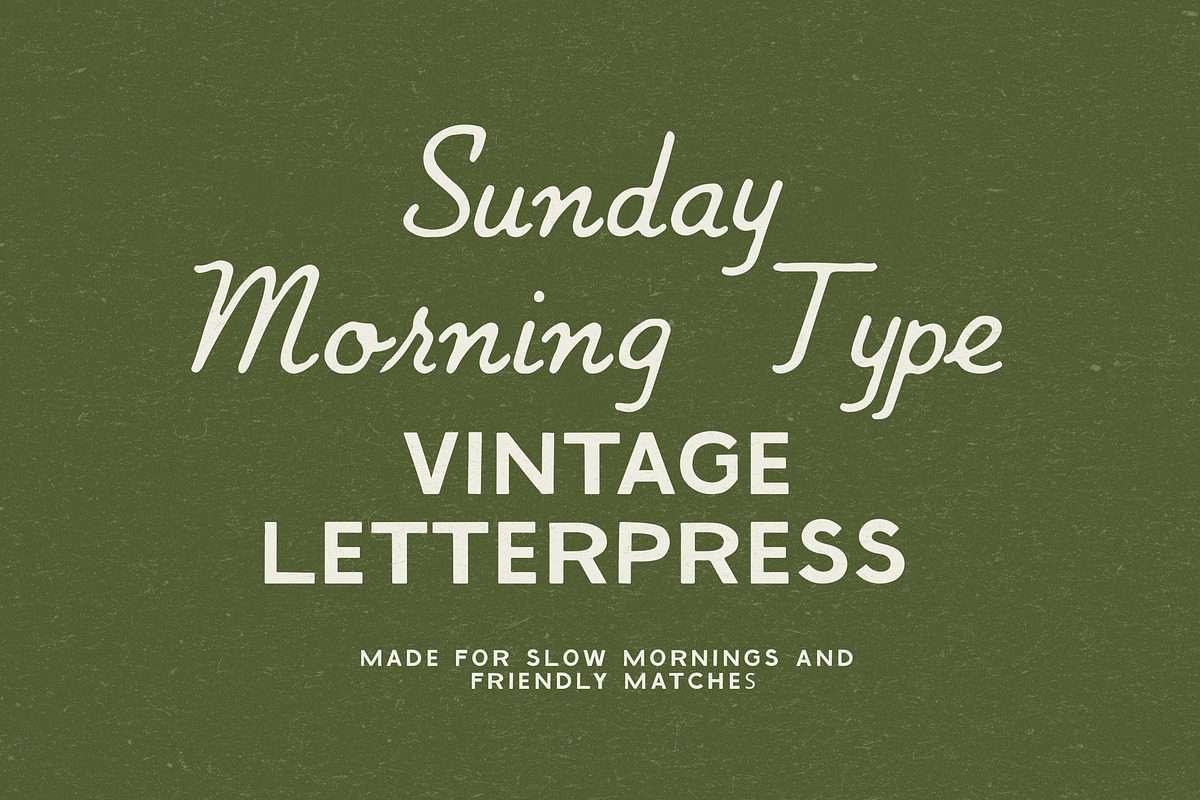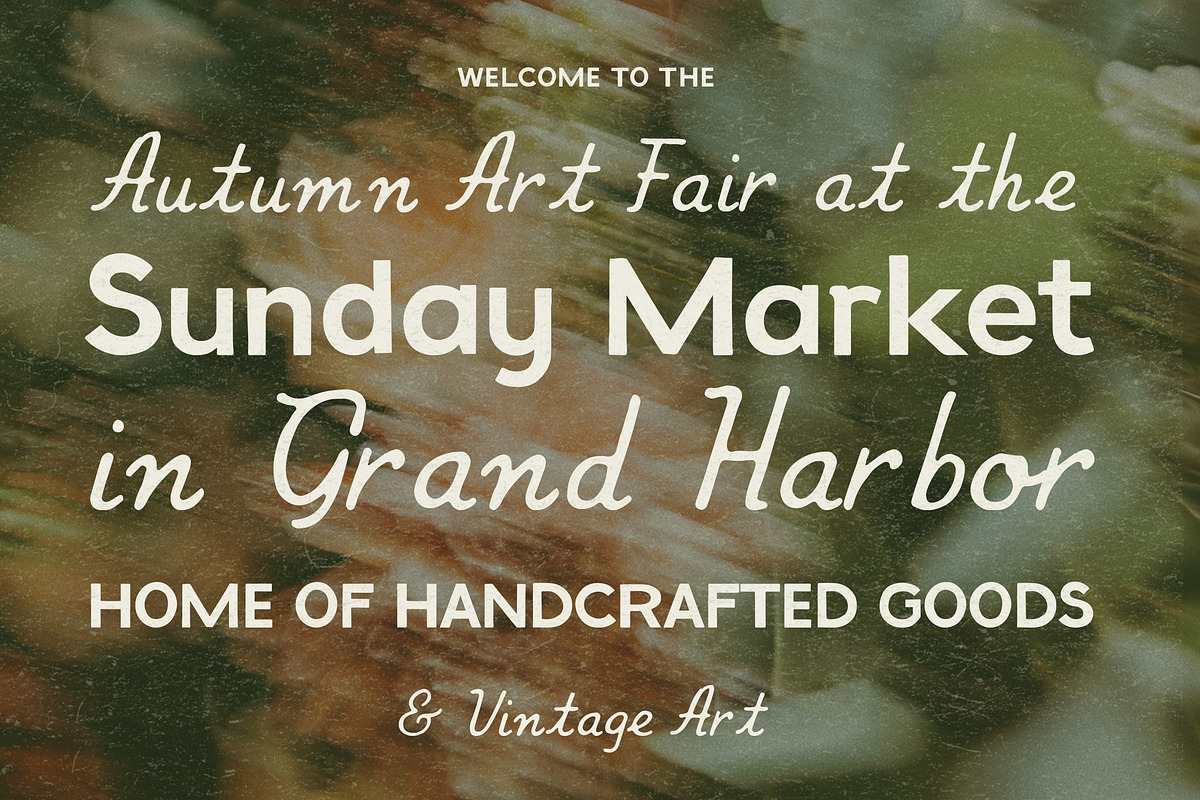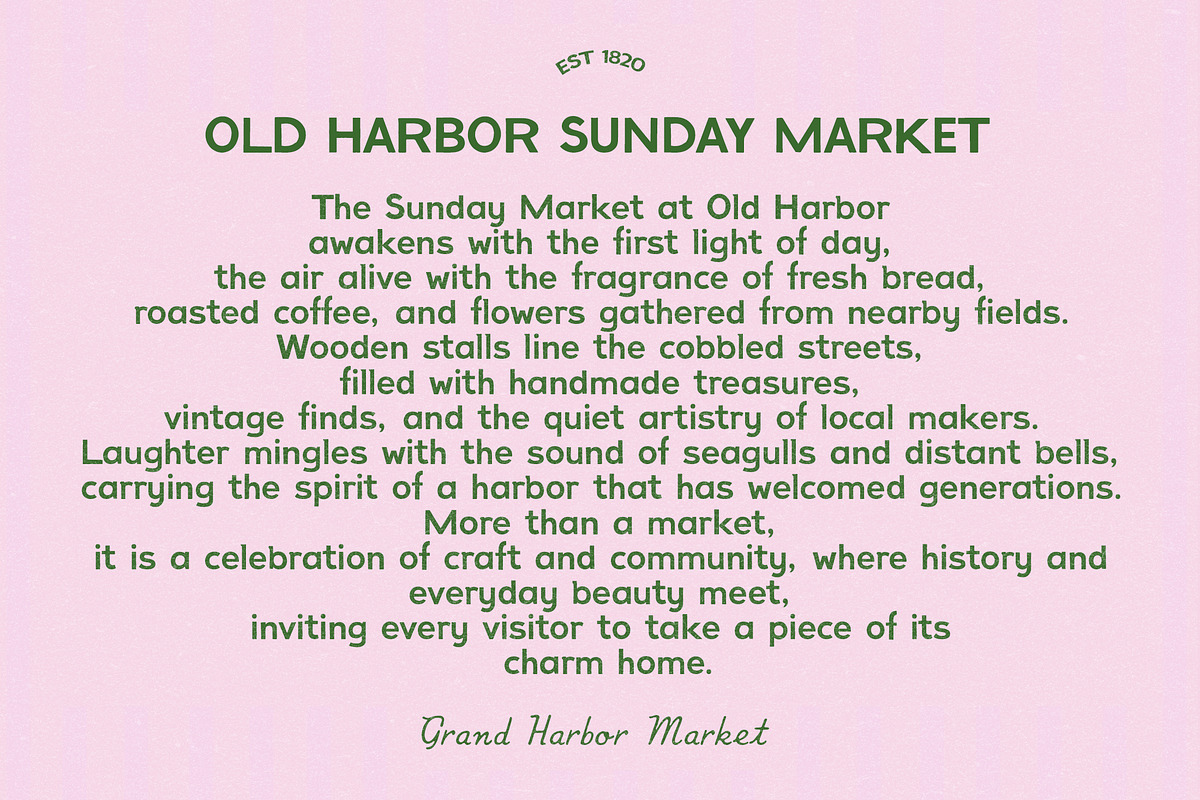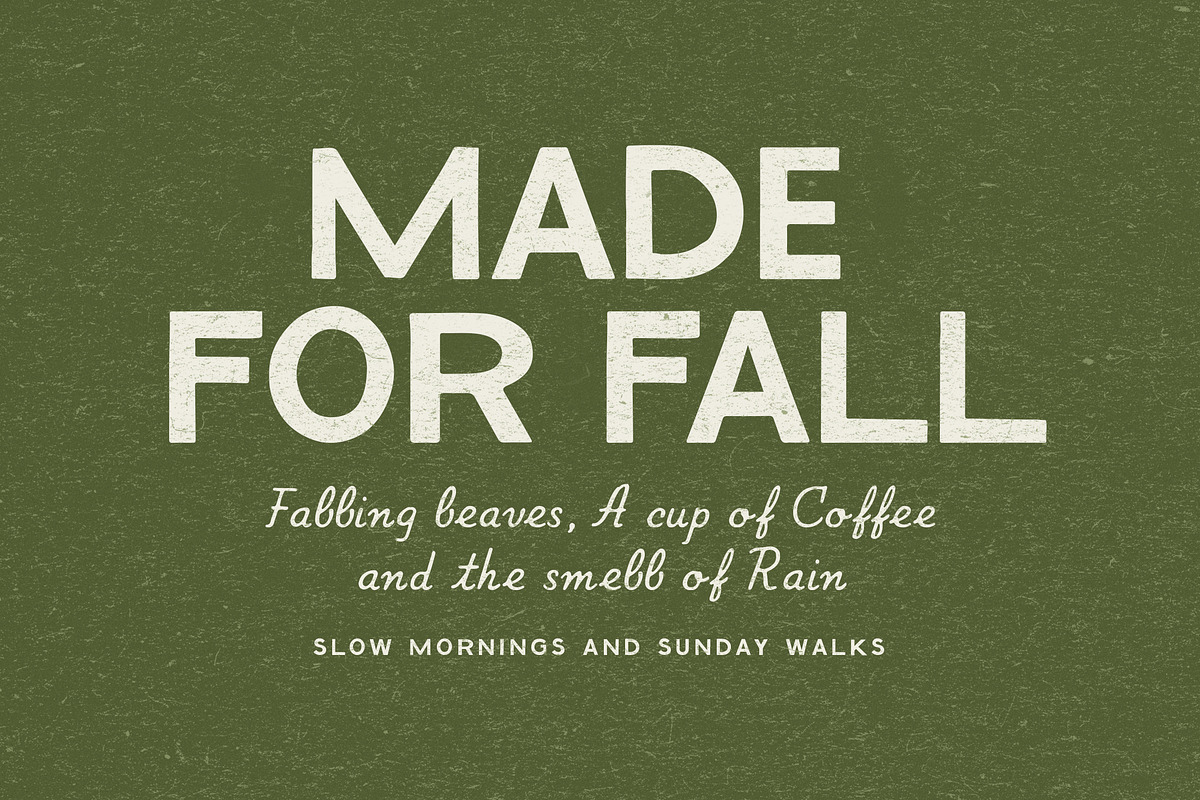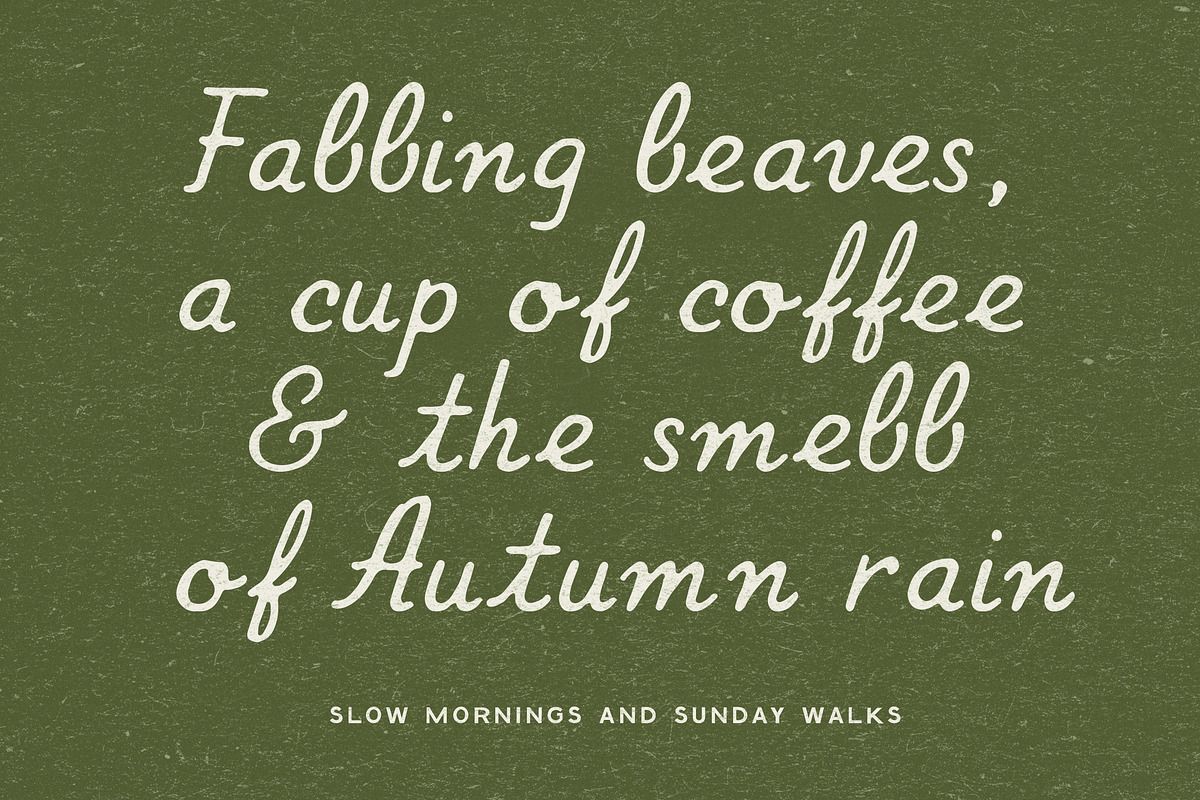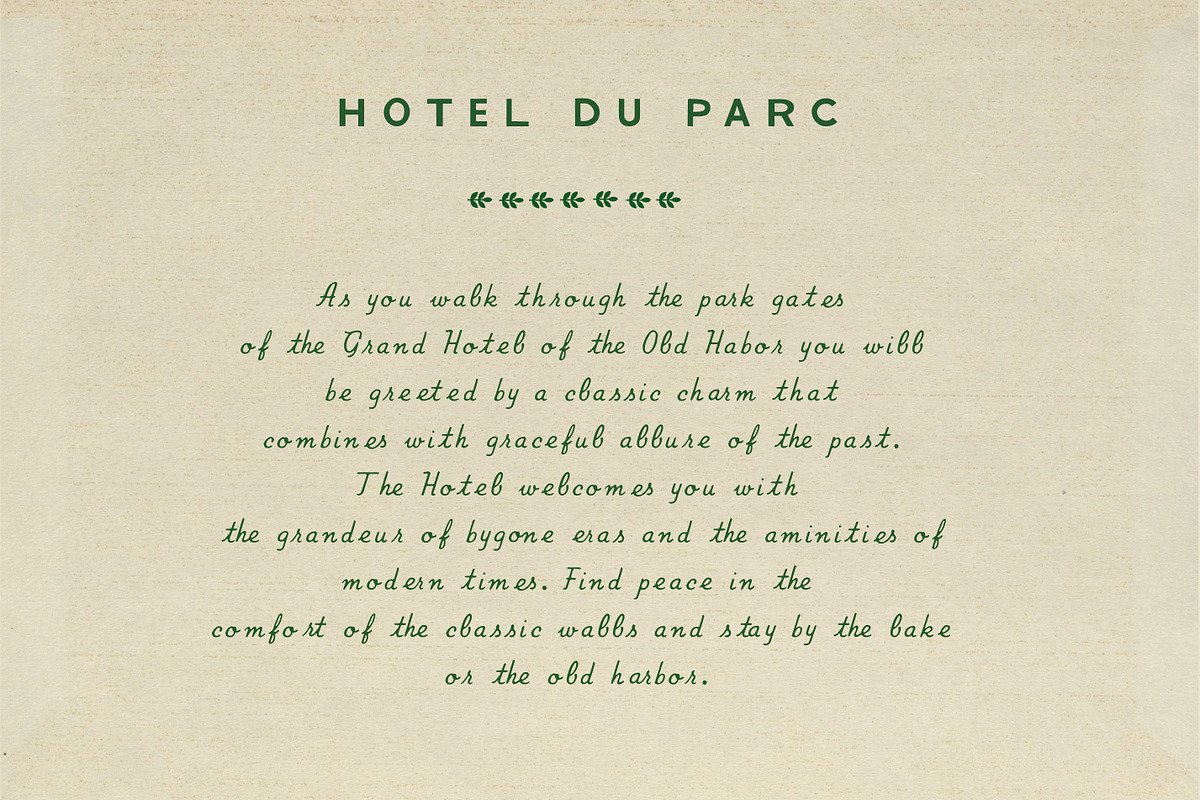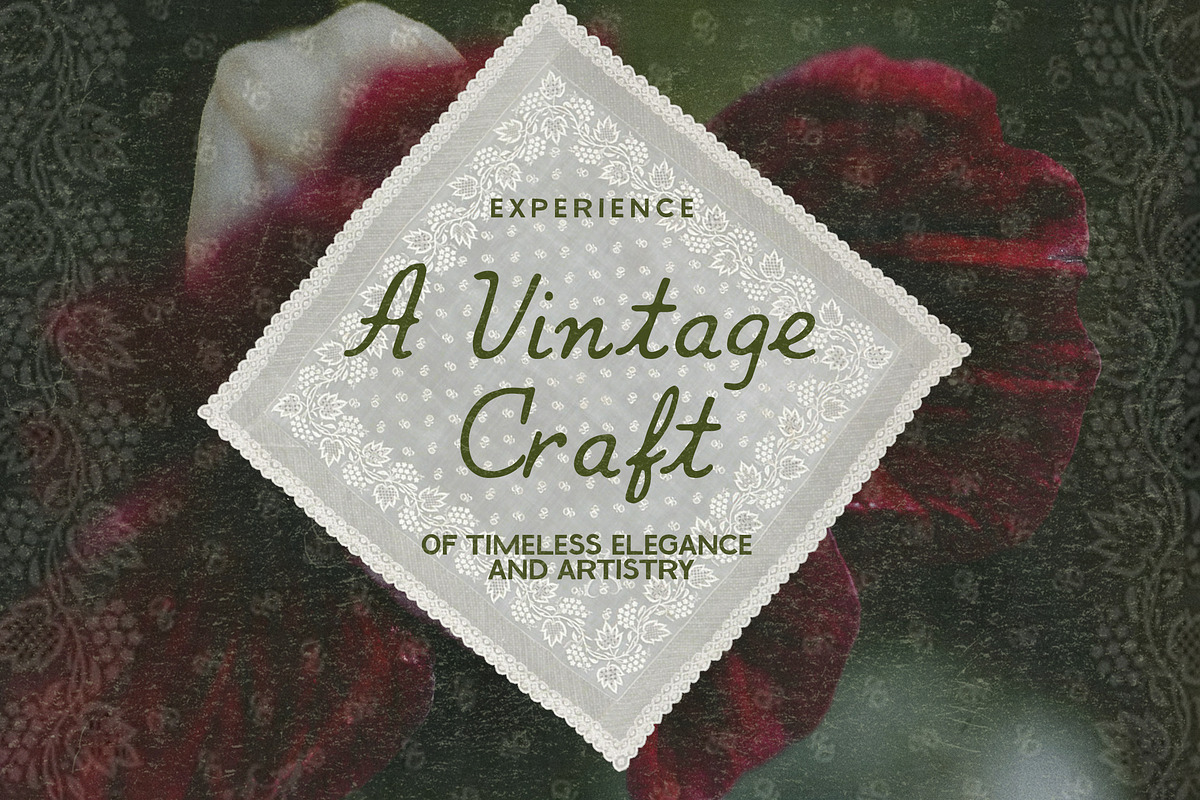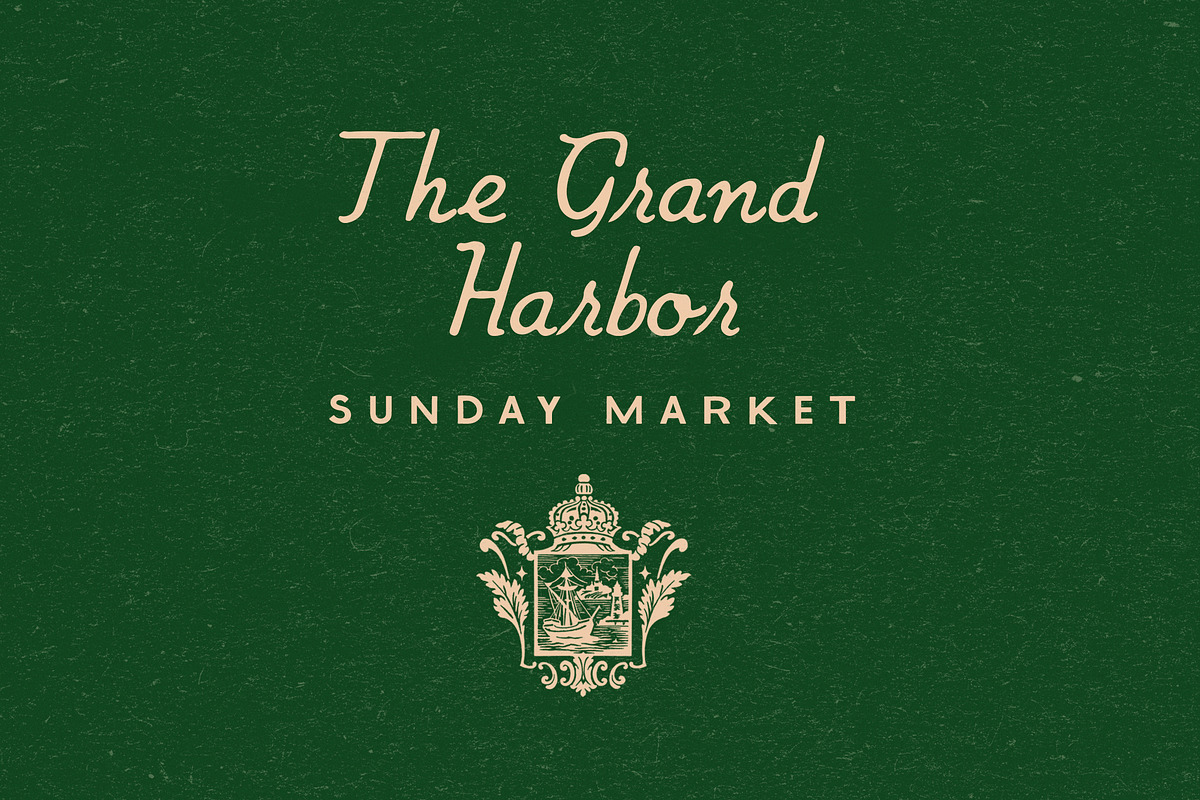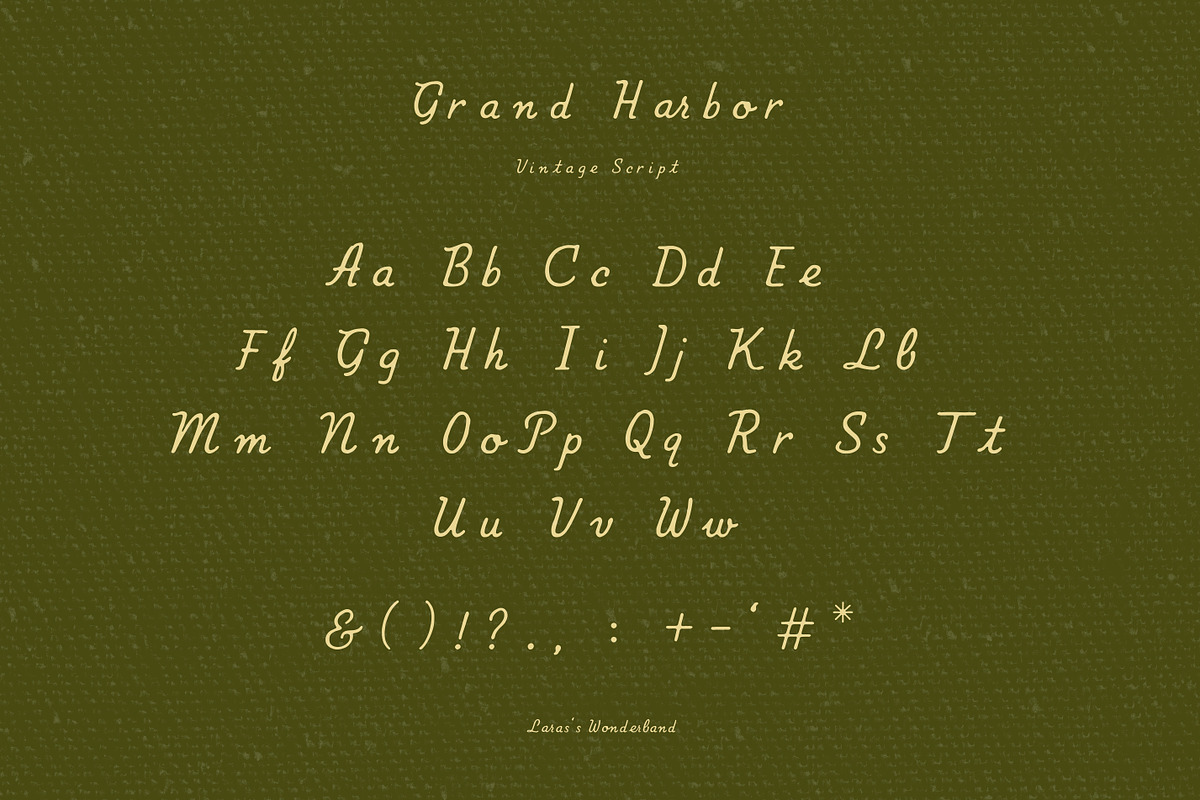
Vintage Handmade Script and Sans Duo
Welcome the elegance of bygone eras and lovingly handcrafted letters with a handwritten vintage font duo that comes with a vintage allure and handmade charm.
Bring character and elegance to your designs with this handcrafted font duo. The set combines a refined sans serif with subtle handmade edges and natural imperfections with a flowing vintage script full of charm and personality. Together they create the perfect balance of structure and warmth giving your projects a touch of old-world luxury with a modern twist.
Add vintage charm to your logo and branding projects, packaging design or wedding invites with a classic, timeless and elegant font duo ready to elevate your artwork!